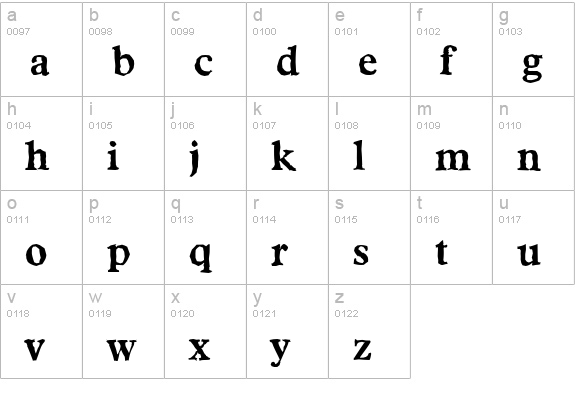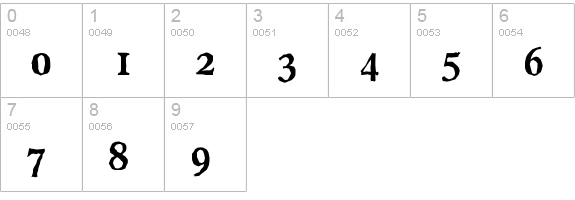
FranciscoAntique-Bold Font Details
FranciscoAntique-Bold is a strong, high-contrast variant in the FranciscoAntique typeface family \xE2\x80\x94 well suited to headlines, attention-grabbing titles, and strong calls-to-action.
FranciscoAntique-Bold is a classic and elegant serif font that exudes a timeless charm. Its bold and robust design makes it perfect for creating eye-catching headlines, logos, and branding materials. This font is ideal for projects that require a touch of sophistication and refinement. What sets FranciscoAntique-Bold apart is its versatility and readability, making it suitable for a wide range of design applications. Whether you are working on a print design project or a digital campaign, this font will help you achieve a professional and polished look. The best part is that FranciscoAntique-Bold is available for free download at FontsMarket.com. You can easily access this font and use it in your projects without any hassle. Don't miss out on the opportunity to enhance your designs with this exquisite typeface. Download FranciscoAntique-Bold today and elevate your creative work to new heights.